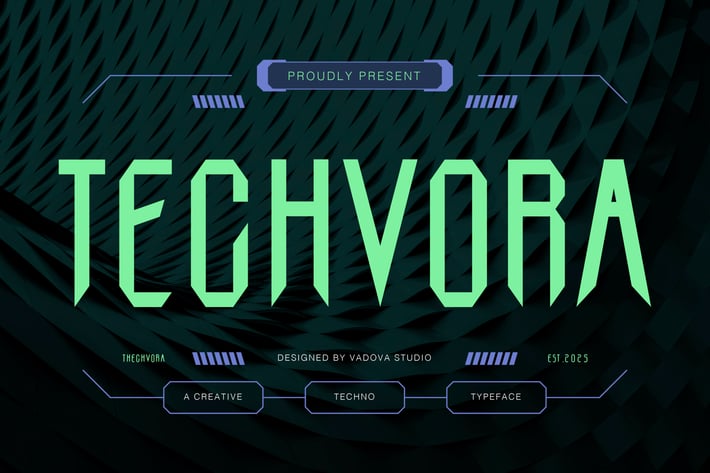
Techvora Creative Font
Techvora is a sharp, angular techno typeface designed for futuristic interfaces, sci-fi branding, esports visuals, and modern cyberpunk layouts. Its tall condensed proportions, pointed edges, and digital-coded rhythm make it ideal for UI titles, energy drink packaging, tech product branding, EDM posters, movie trailers, and gaming overlays. The font includes uppercase, lowercase, numerals, and punctuation, and is available in OTF, TTF, and WOFF formats for both print and screen design.
Relevance and Use Cases is perfect for sci-fi headline typography, futuristic logo design, gaming interface text, motion graphic titles, digital tech branding, cyberpunk posters, streaming overlays, esport team identity, web UI display type, music festival visuals, and product packaging for tech gear & hardware.
Uppercase & Lowercase characters